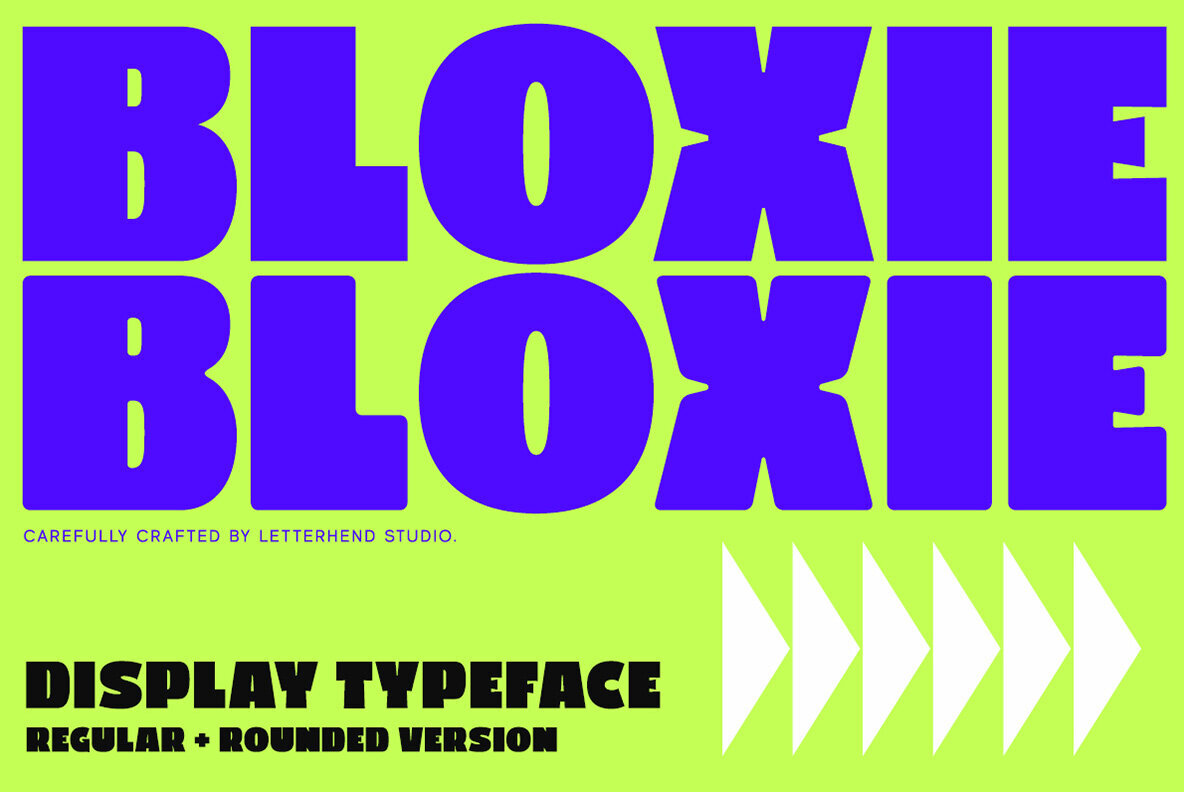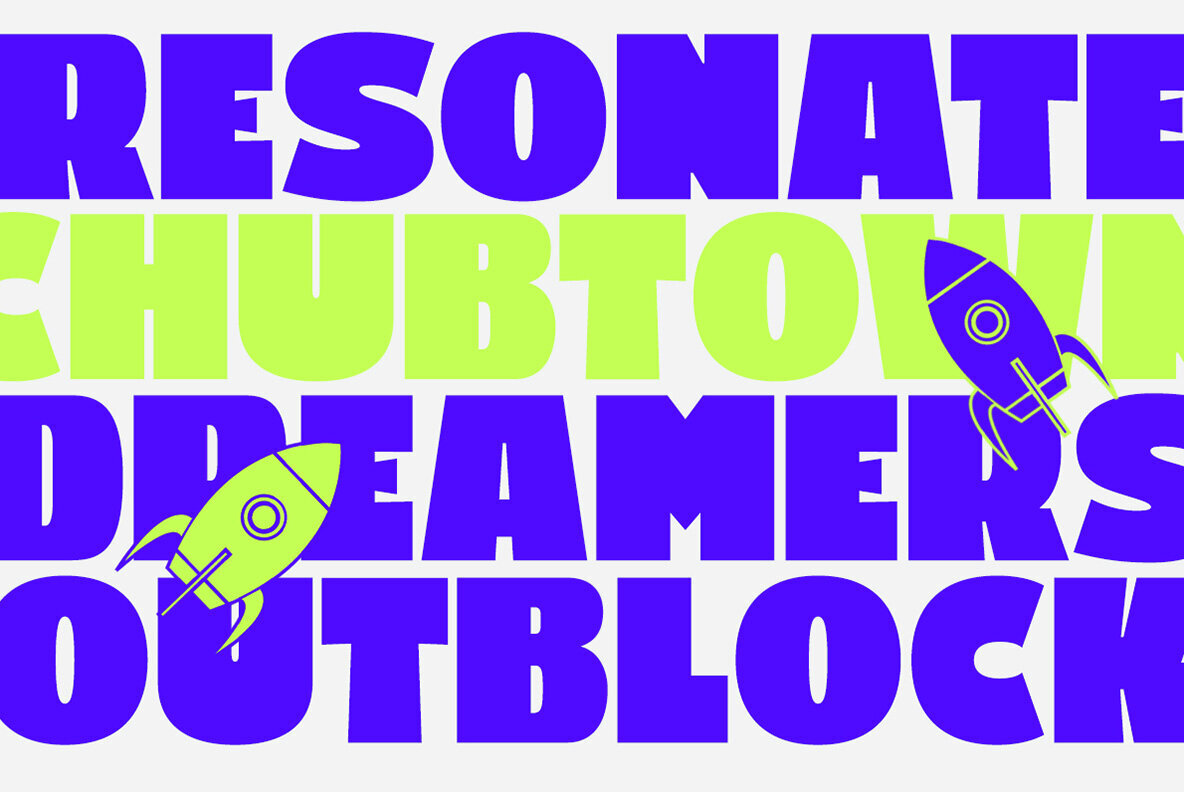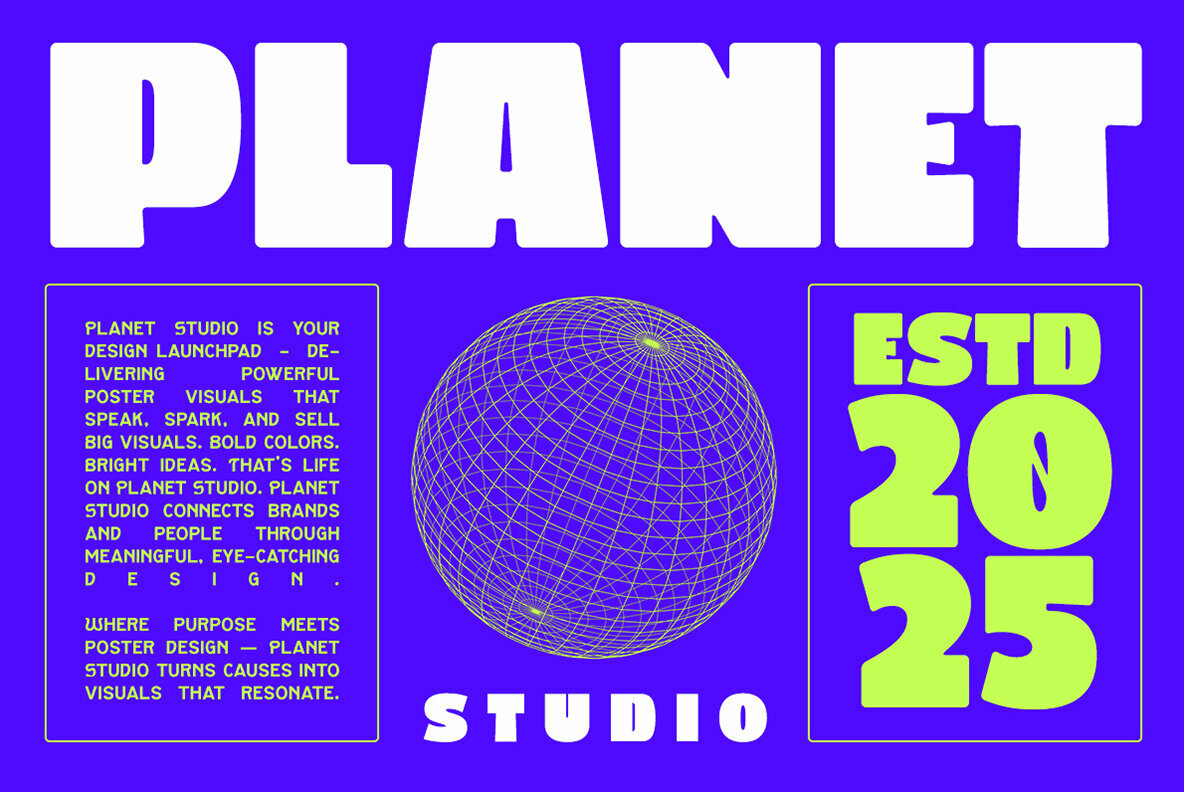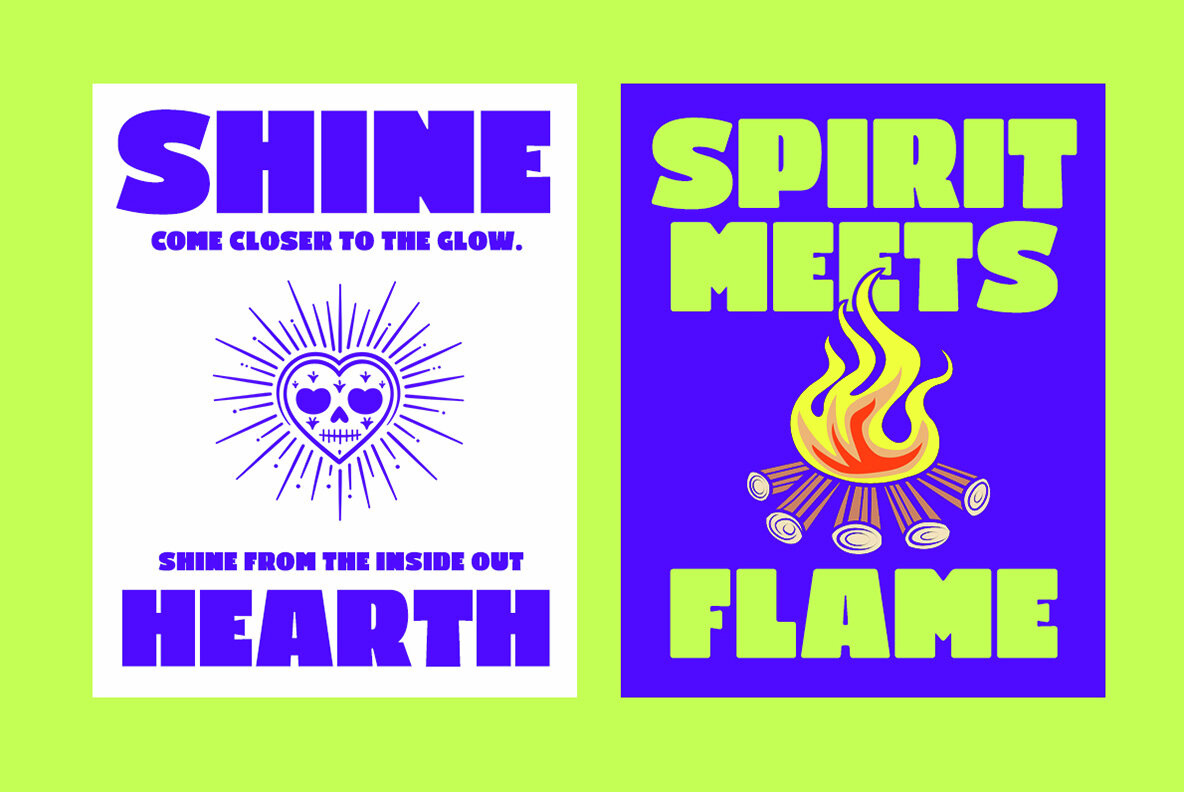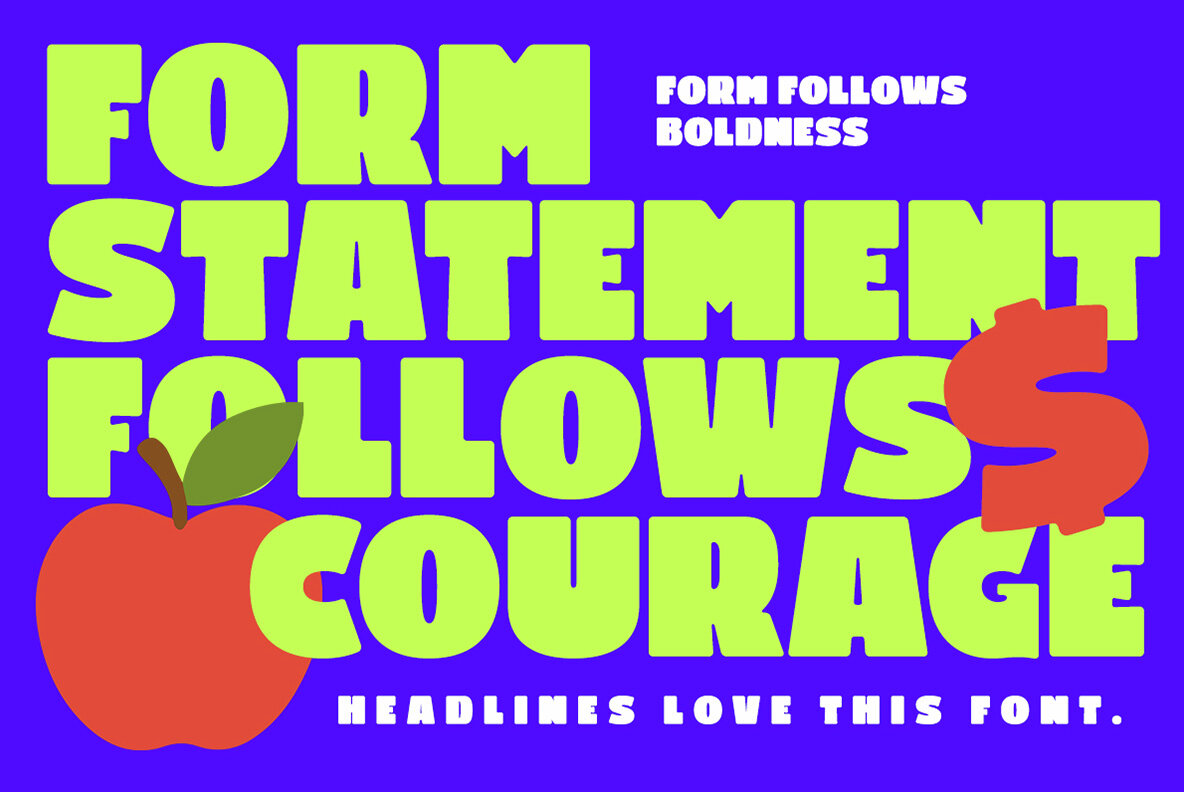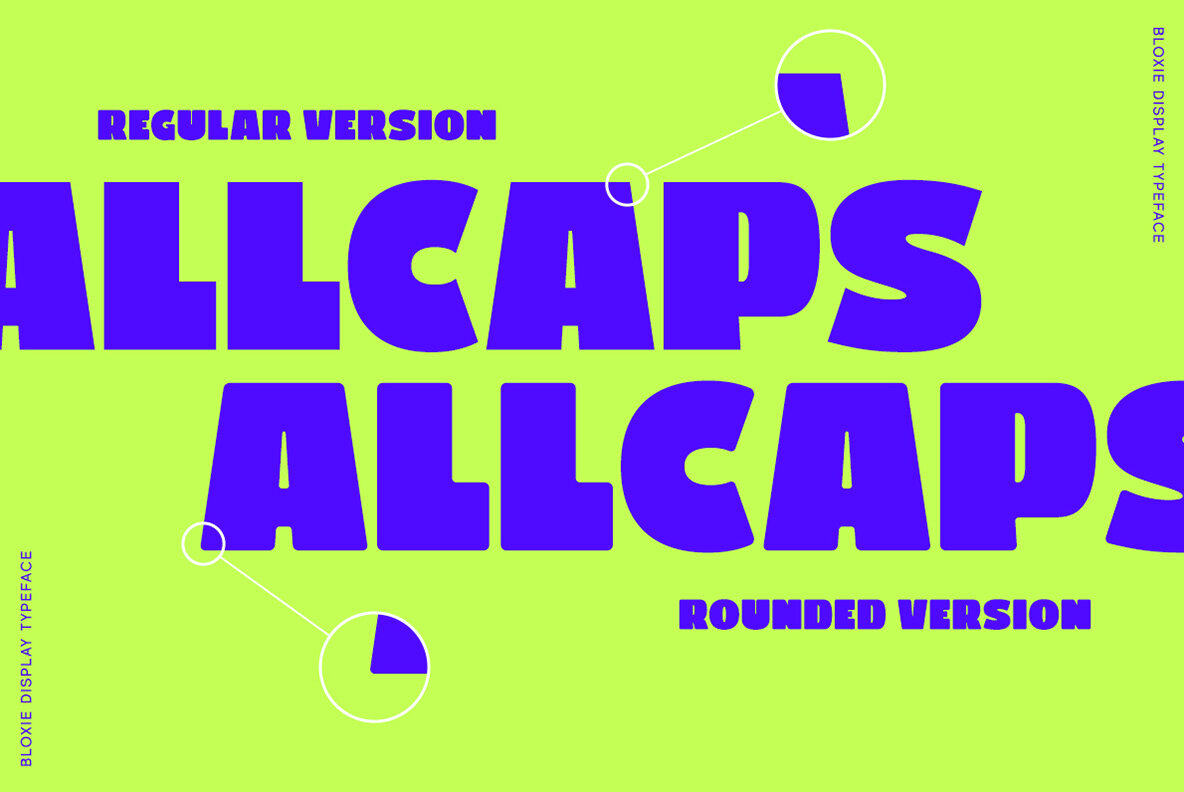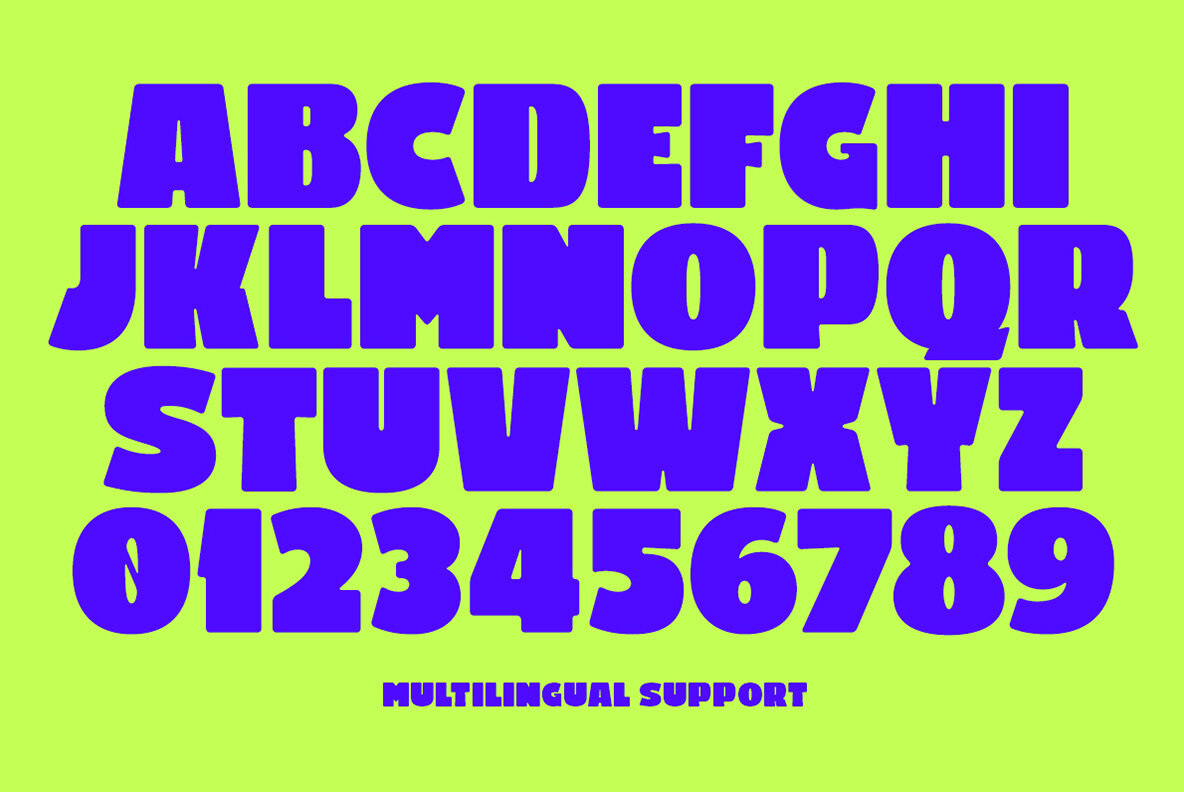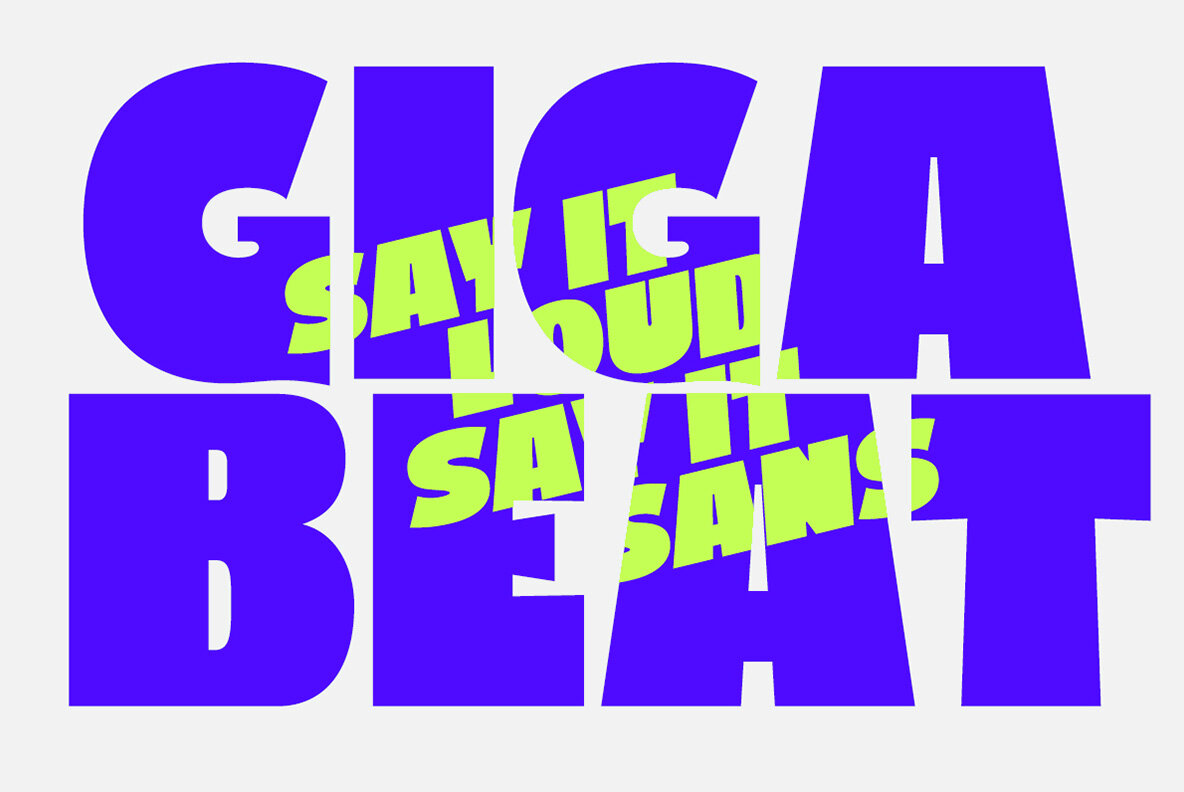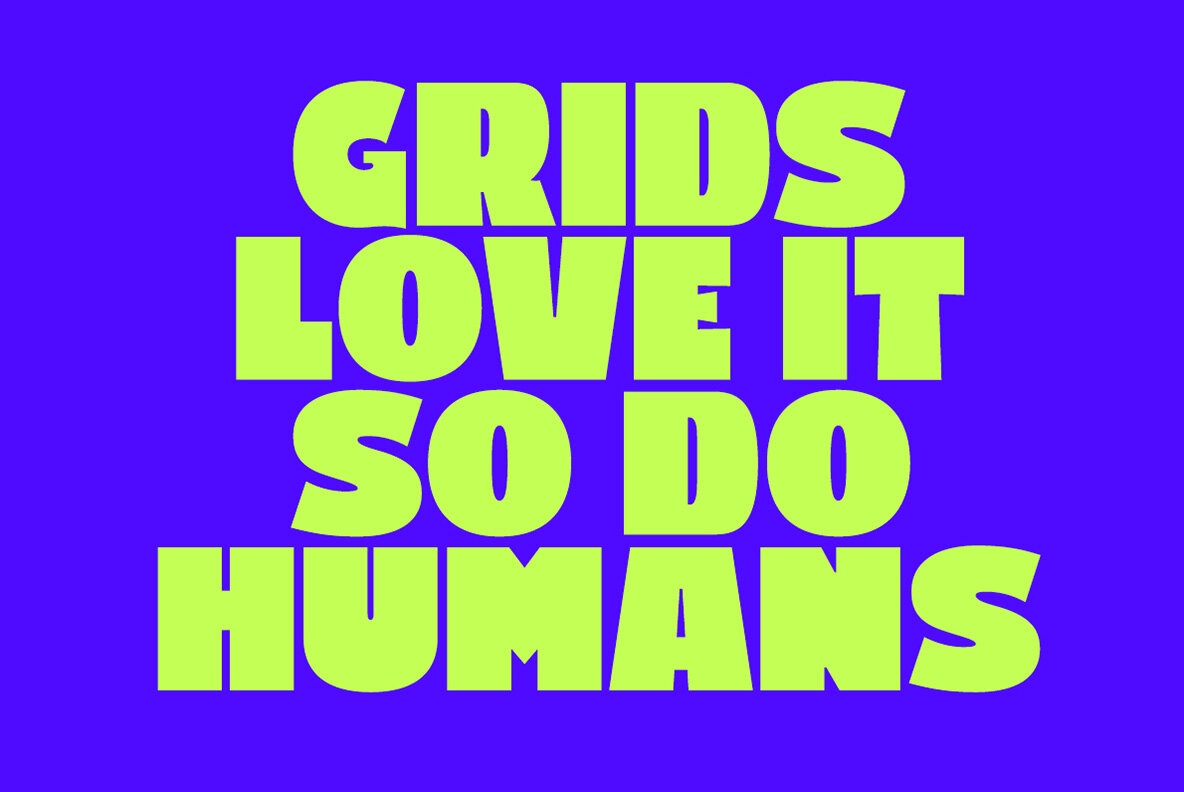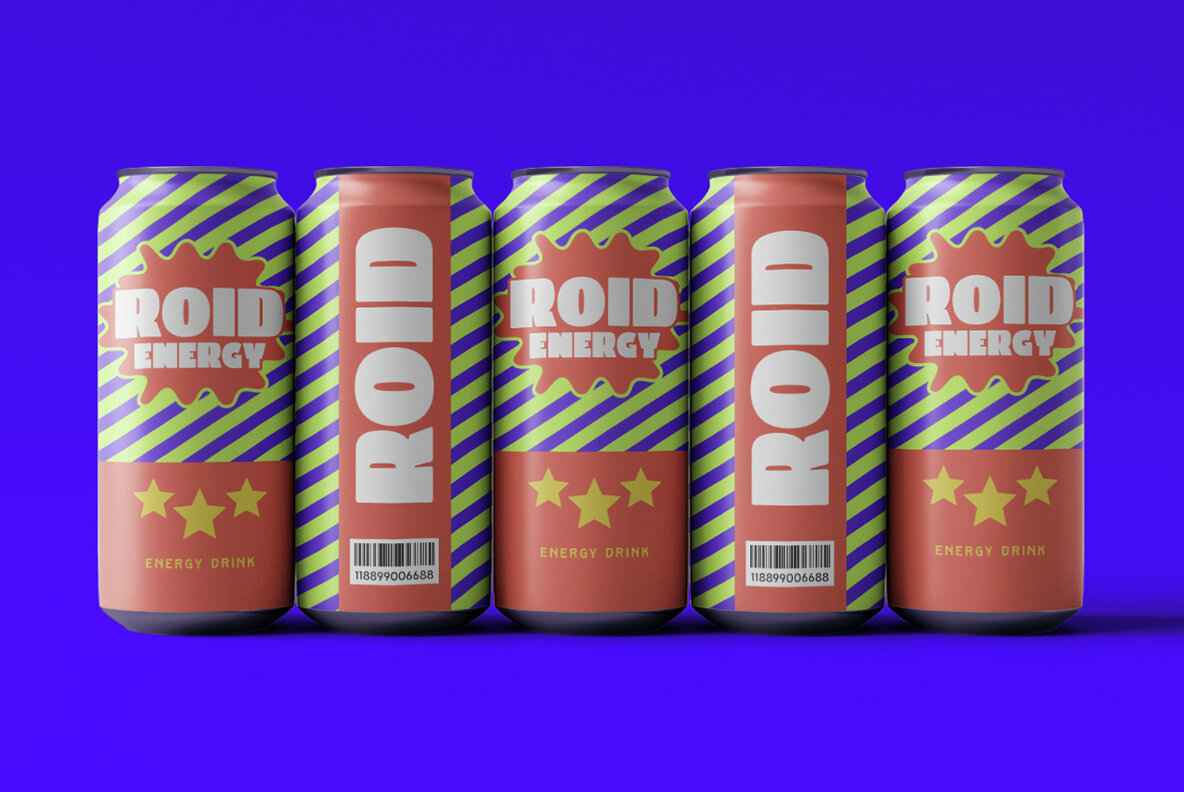
Bloxie Font
Bloxie offers a commanding presence with its bold display design, featuring both Regular and Rounded styles. This typeface truly stands out with its thick, geometric letterforms, making it an excellent choice for posters, logos, and striking headlines. The Regular style projects a strong and assertive look, while the Rounded version introduces a softer, more playful tone, perfect for adaptable branding and compelling design projects. Features: For optimal use, access the full range of glyph variations with programs that support OpenType features, such as Adobe applications and Corel Draw.Bloxie Typeface: Bold Expression for Impactful Design